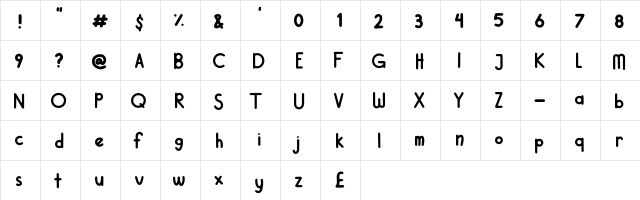
Little Orion - Personal Use Regular
| Foundry | WyareCreatype Co. |
| Designer | Heloyud |
Design Context for Little Orion - Personal Use Typeface
Little Orion - Personal Use takes a measured approach to typography — its balanced proportions and neutral character make it a reliable workhorse for both digital and print work.